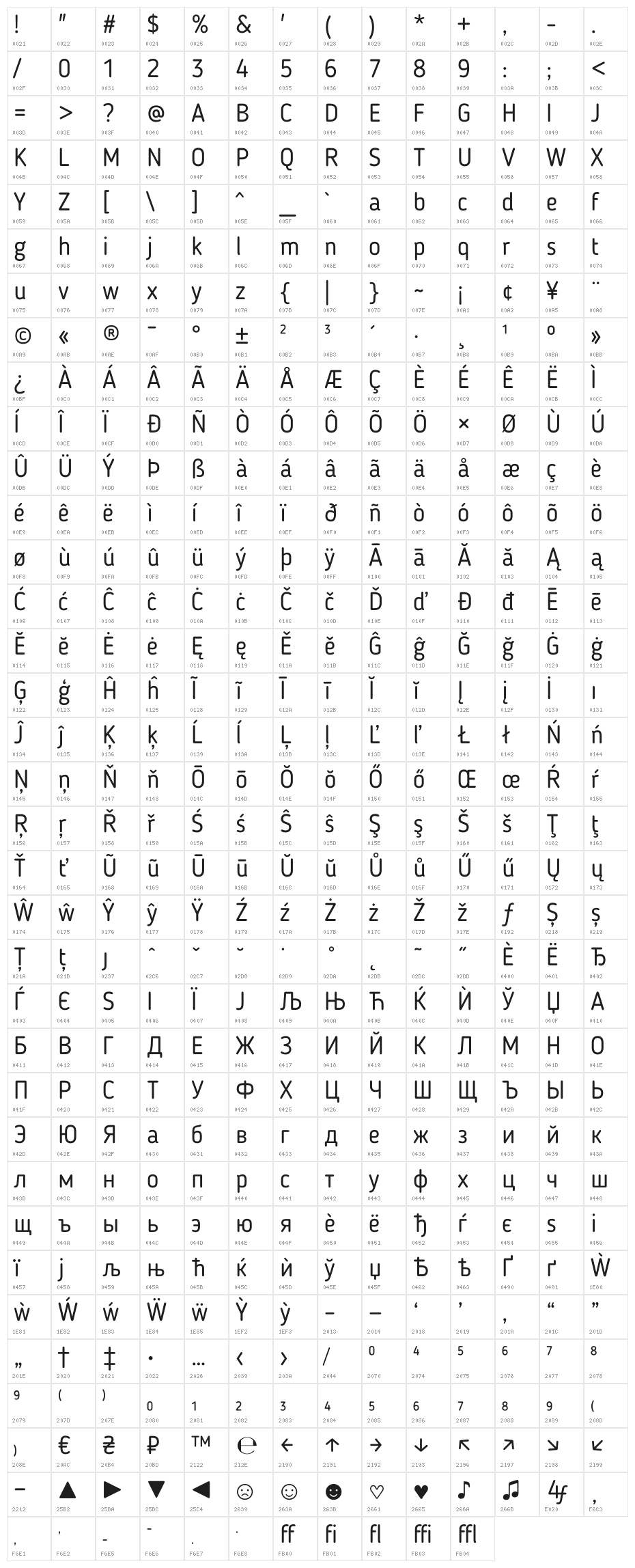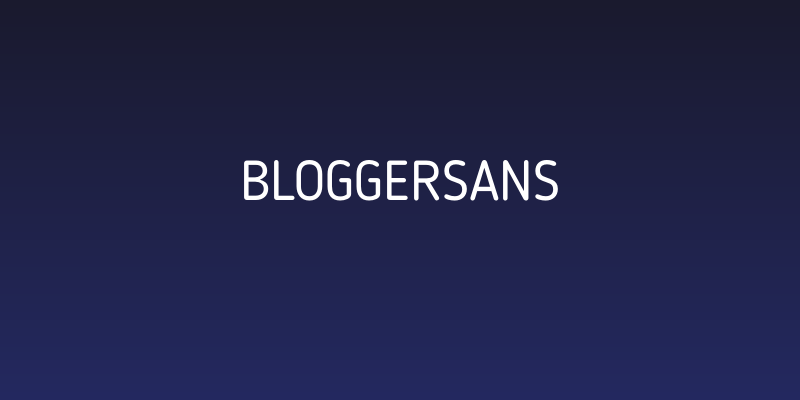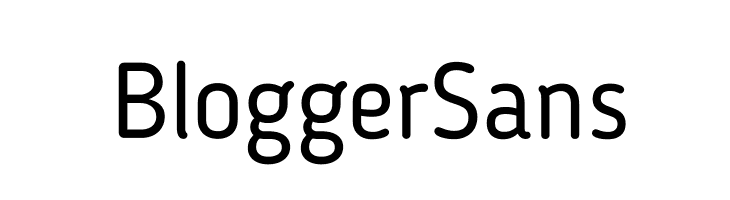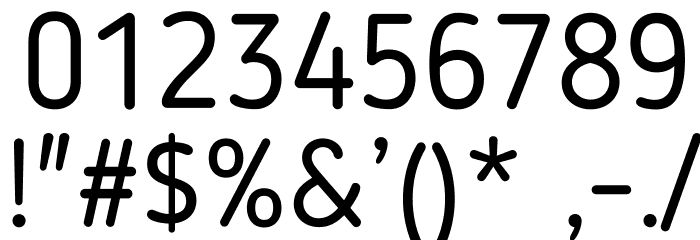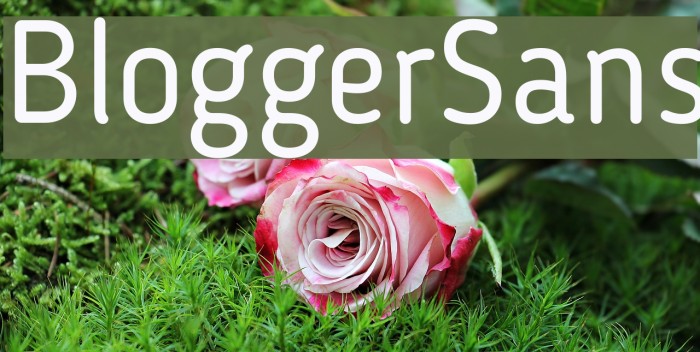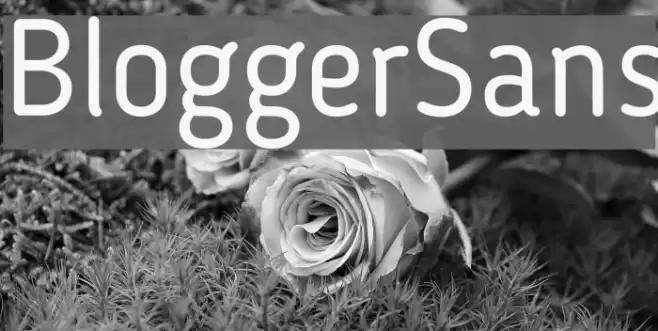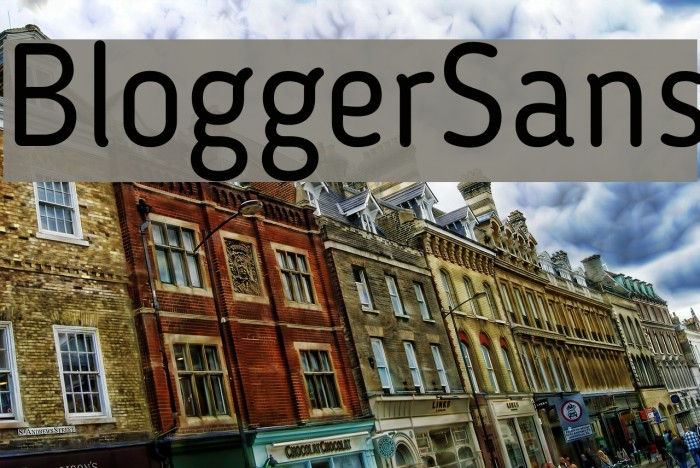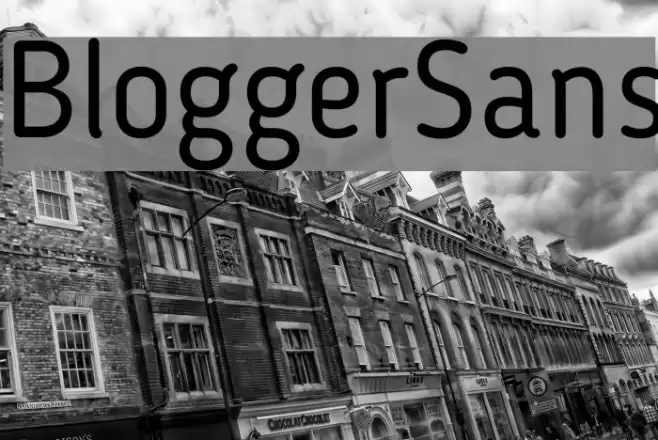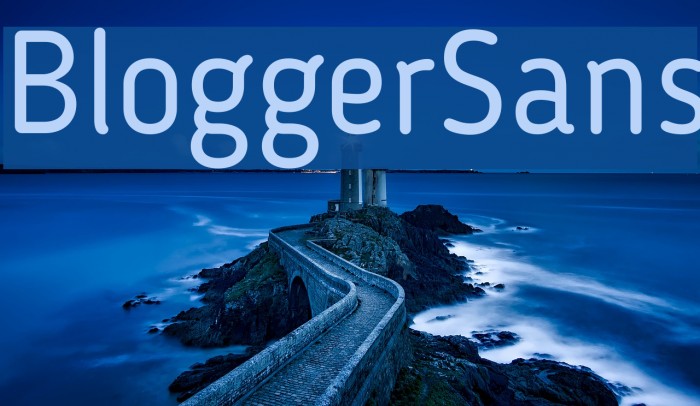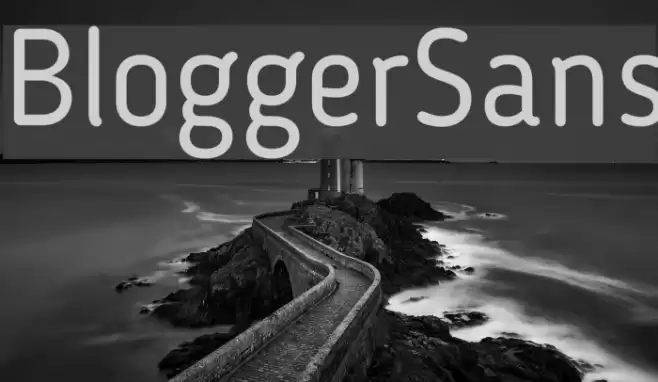
BloggerSans Font
BloggerSans Description
This typeface features a clean and modern sans-serif design, characterized by its rounded edges and uniform stroke width. The letters are well-proportioned, providing a balanced and harmonious appearance. The uppercase and lowercase letters maintain a consistent style, with a slight geometric influence that enhances readability. The numerals are clear and distinct, making them suitable for various applications. The special characters are designed to complement the overall aesthetic, ensuring versatility in usage.
| Use Case | Headlines, Body text, Logos |
| Proposed Projects | Ideal for digital interfaces, branding, advertising, and editorial design due to its clarity and modern appeal. |